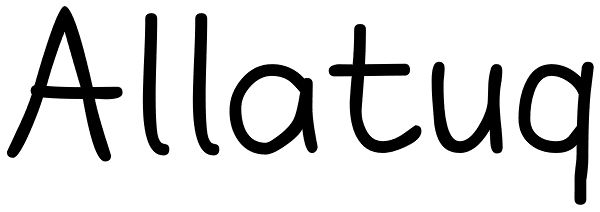
Allatuq
In 1997 the first designs of Allatuq were made while Michael Everson was doing some work with the Baffin Divisional Board of Education in what is now Nunavut (but was still Northwest Territories then). The font contained The basic Latin ASCII...
Allatuq
Allatuq Oblique